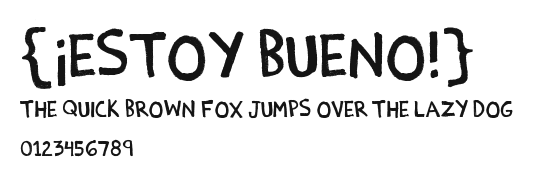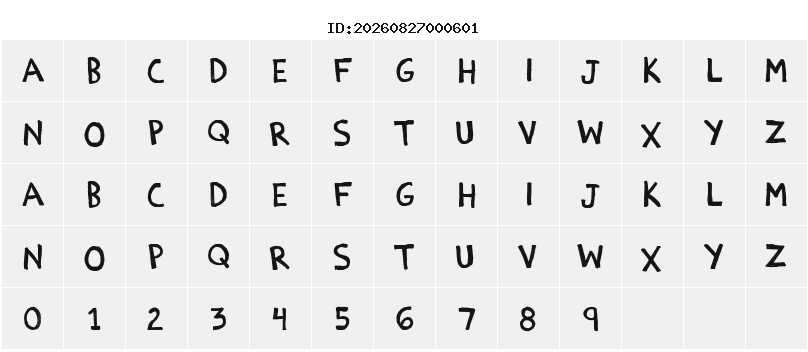
{¡Estoy Bueno!} Preview
• Font Name: {¡Estoy Bueno!}
• Designer: Denise Bentulan
About {¡Estoy Bueno!}.ttf
{¡Estoy Bueno!}.ttf is a modern, elegant sans-serif font designed for ultimate readability and visual harmony. Perfect for branding, headlines, web design, and print materials.